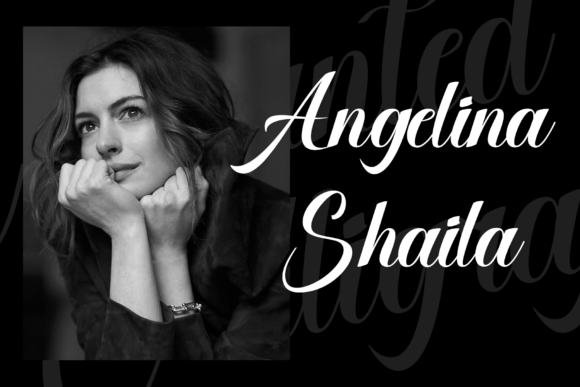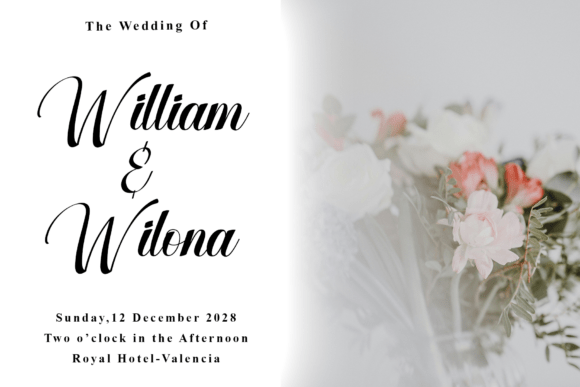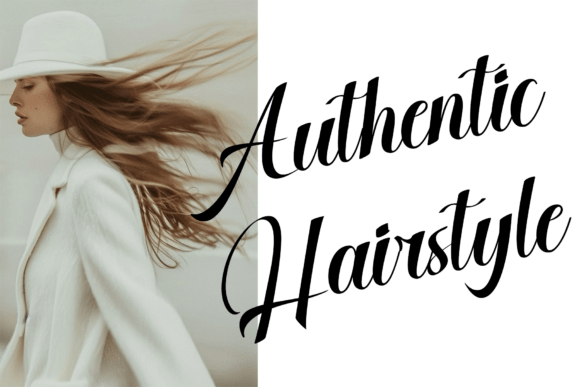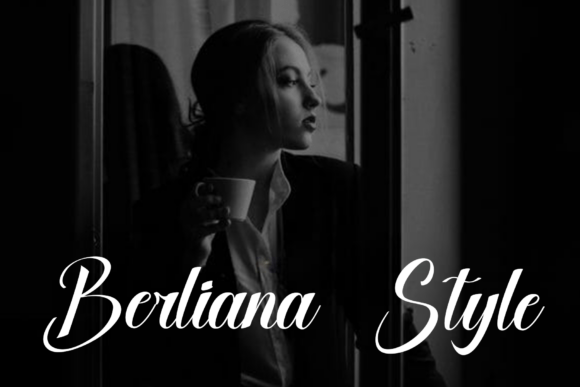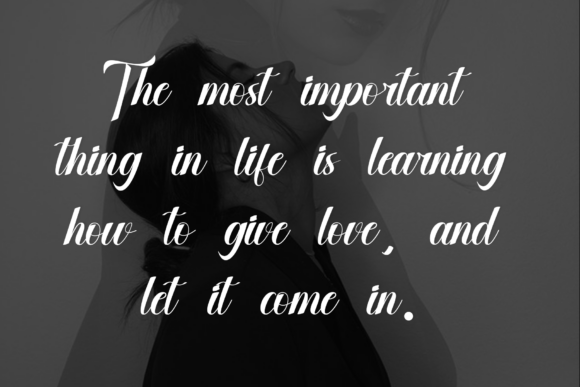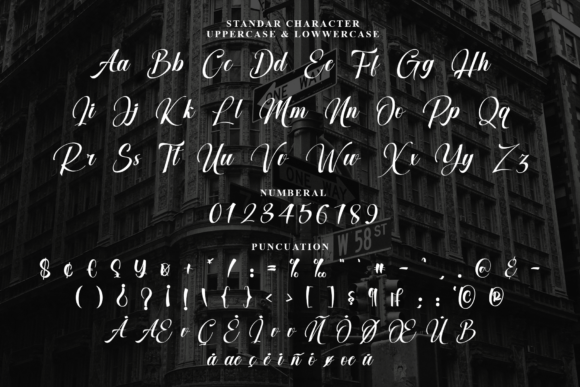
Introducing Enchanted Calligraph Font: Elevate Your Designs with Elegance
Are you searching for a font that exudes sophistication, elegance, and a touch of modernity? Look no further than the Enchanted Calligraph Font. This beautiful, handwritten script font is designed to capture the essence of luxury and refinement, making it perfect for a variety of high-end design applications.
The Essence of Enchanted Calligraph
Enchanted Calligraph is an elegant and fluid handwritten script font that boasts a range of distinctive features. Its high-contrast strokes, sweeping loops, and fine, tapering terminals come together to create a rhythmic and natural handwritten flow. The font’s expansive horizontal presence and delicate connections between characters provide a high-end, personalized aesthetic that is sure to elevate your designs.
Key Features of Enchanted Calligraph Font
• Elegant and fluid handwritten script: Enchanted Calligraph features a beautiful, flowing script that is perfect for creating sophisticated and refined designs.
• High-contrast strokes: The font’s high-contrast strokes add depth and dimension to your designs, creating a sense of luxury and refinement.
• Sweeping loops and fine terminals: The sweeping loops and fine terminals of Enchanted Calligraph give the font a natural, handwritten feel that is both elegant and sophisticated.
• Expansive horizontal presence: The font’s expansive horizontal presence makes it perfect for creating designs that require a sense of grandeur and luxury.
• Delicate connections between characters: The delicate connections between characters in Enchanted Calligraph add a touch of elegance and refinement to your designs.
Perfect for Luxury Designs
Enchanted Calligraph Font is a perfect choice for a variety of luxury design applications, including:
• Luxury wedding stationery: The font’s elegant and sophisticated feel makes it perfect for creating beautiful and refined wedding stationery.
• Intimate event branding: Enchanted Calligraph is ideal for creating bespoke branding for intimate events, such as weddings, anniversaries, and baby showers.
• High-end editorial signatures: The font’s luxurious feel makes it perfect for use as editorial signatures in high-end publications.
• Sophisticated lifestyle photography overlays: Enchanted Calligraph can be used to add a touch of elegance and sophistication to lifestyle photography overlays.
Why Choose Enchanted Calligraph Font?
There are many reasons why designers and crafters choose Enchanted Calligraph Font for their projects. Here are just a few:
• Unique and distinctive: Enchanted Calligraph is a unique and distinctive font that will set your designs apart from the crowd.
• Elegant and sophisticated: The font’s elegant and sophisticated feel makes it perfect for creating high-end designs.
• Versatile: Enchanted Calligraph can be used for a wide range of design applications, from wedding stationery to lifestyle photography overlays.
In conclusion, Enchanted Calligraph Font is a beautiful and elegant handwritten script font that is perfect for designers and crafters looking to create sophisticated and refined designs. With its high-contrast strokes, sweeping loops, and fine terminals, this font is sure to elevate your designs and add a touch of luxury and refinement. Whether you’re creating luxury wedding stationery, intimate event branding, high-end editorial signatures, or sophisticated lifestyle photography overlays, Enchanted Calligraph Font is the perfect choice.